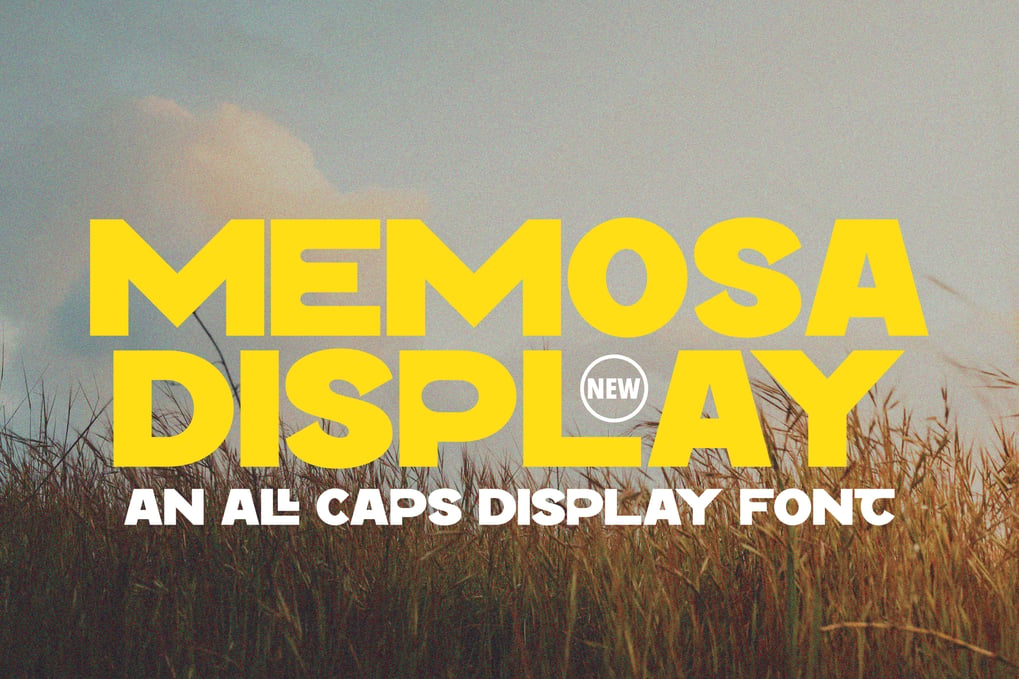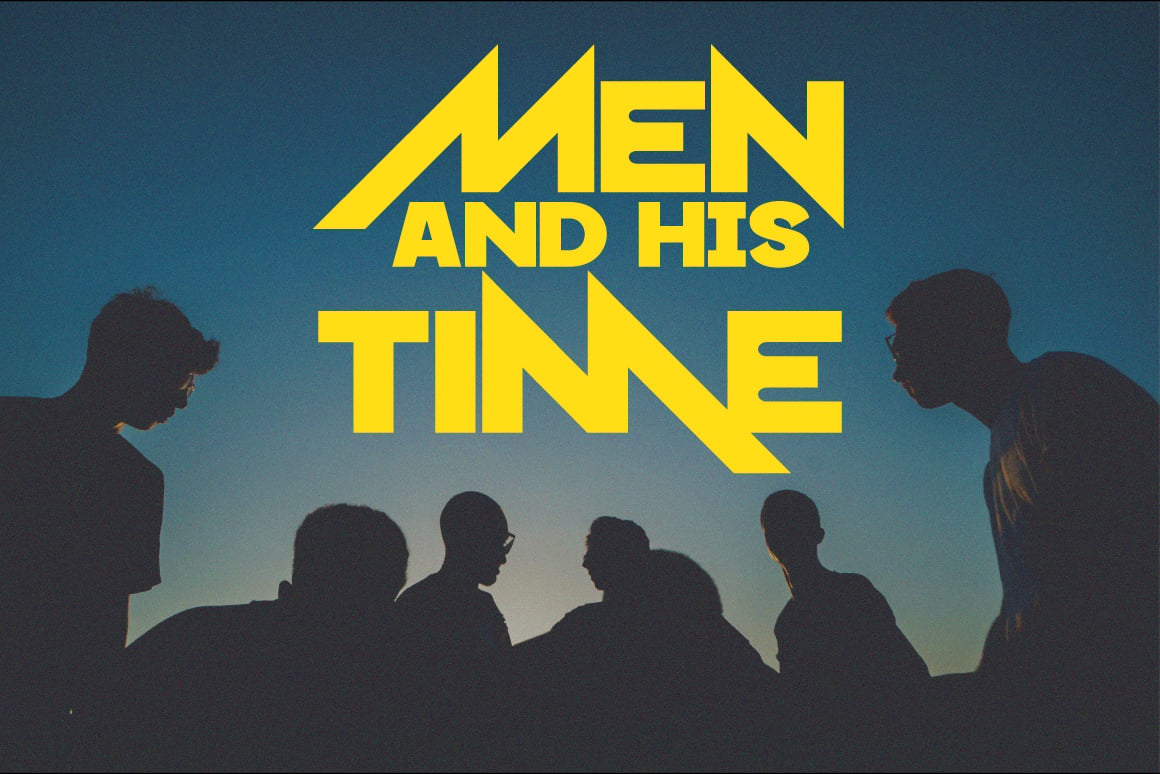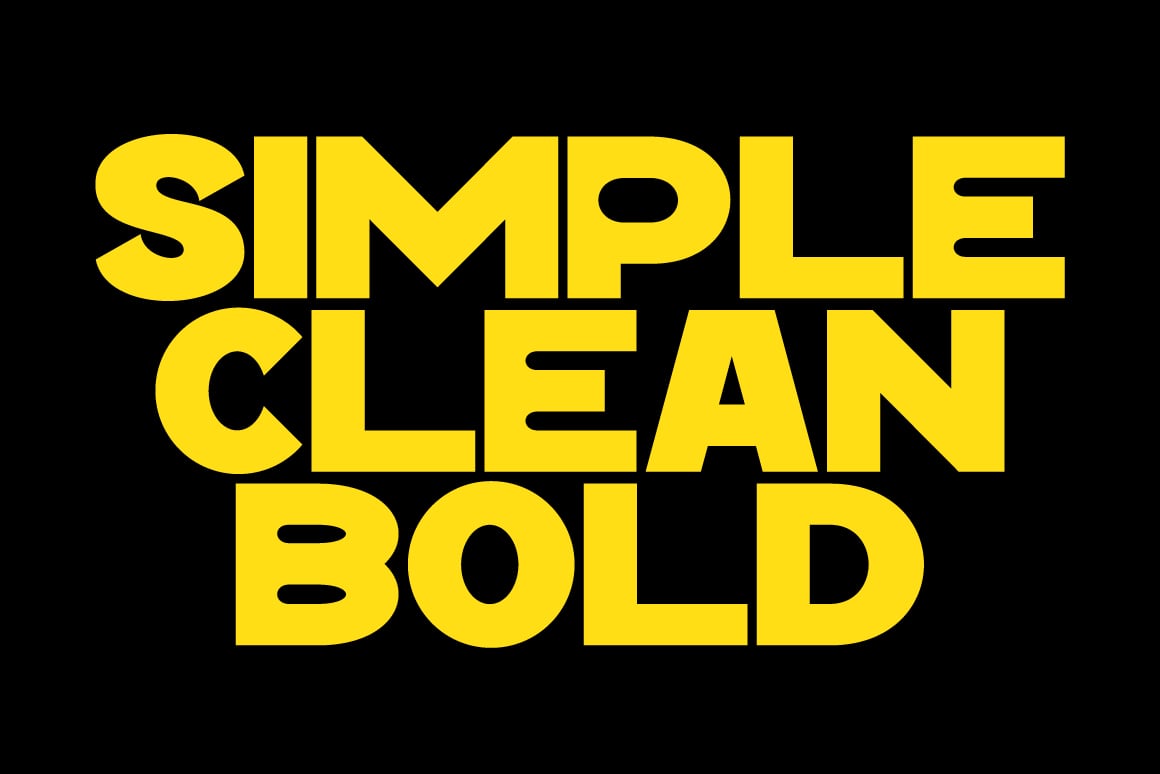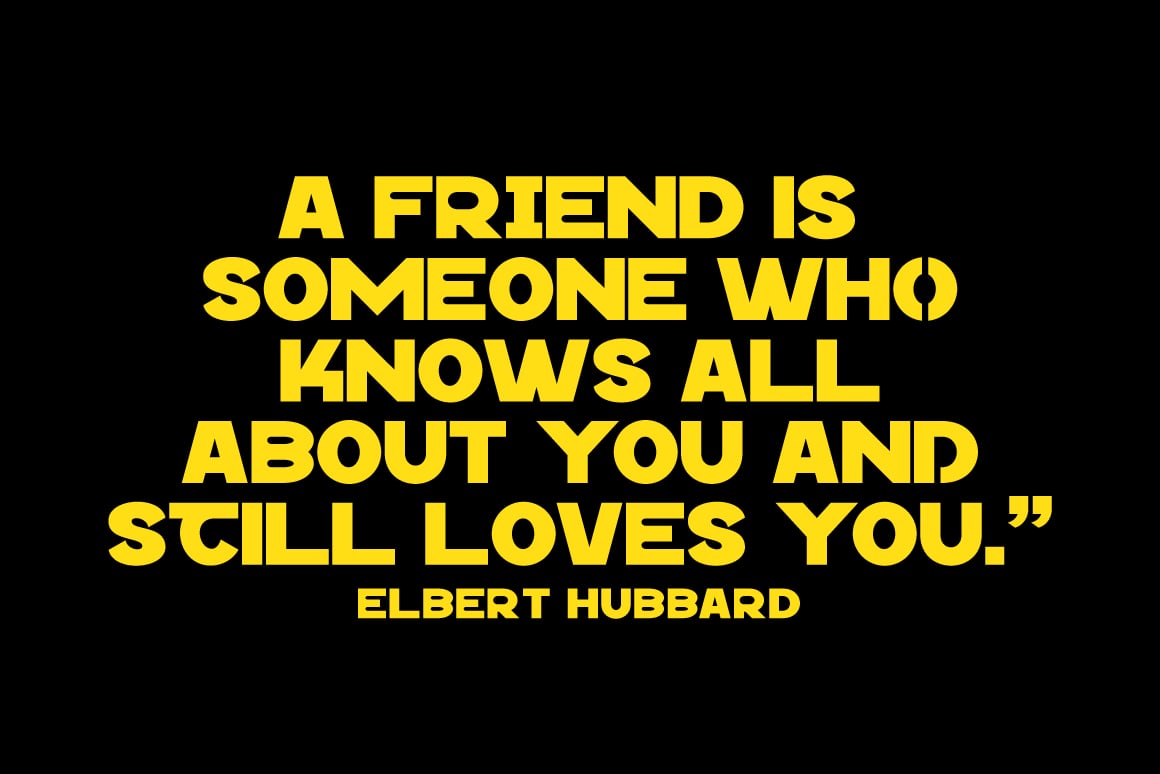
Memosa – All Caps Display Font
Memosa Display Font come with 250+ glyphs. The alternative characters were divided into several Open Type features such as Swash, Stylistic Sets, Stylistic Alternates, and Ligature. The Open Type features can be accessed by using Open Type savvy programs such as Adobe Illustrator, Adobe InDesign, Adobe Photoshop Corel Draw X version, And Microsoft Word. And this Font has given PUA unicode (specially coded fonts). so that all the alternate characters can easily be accessed in full by a craftsman or designer.